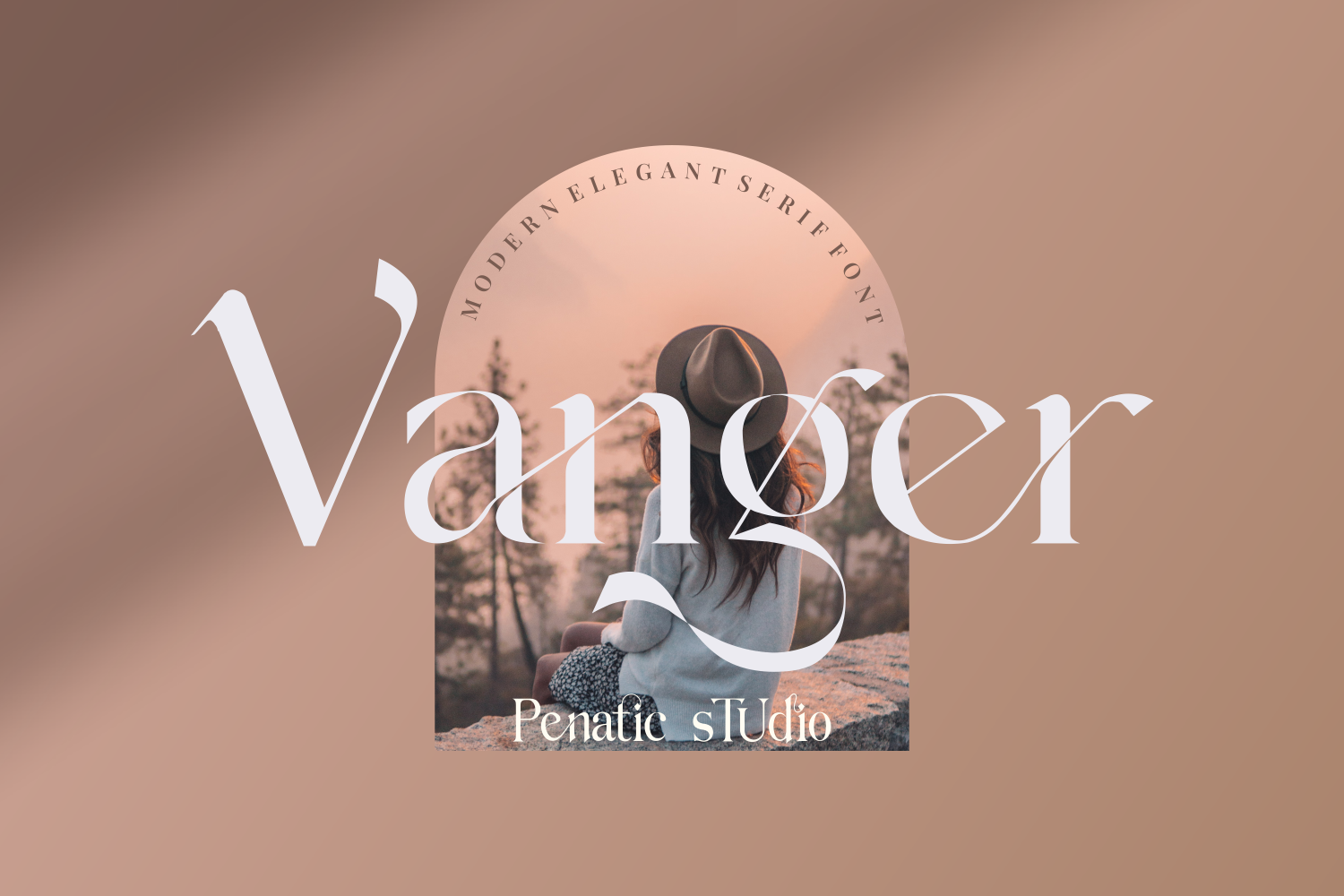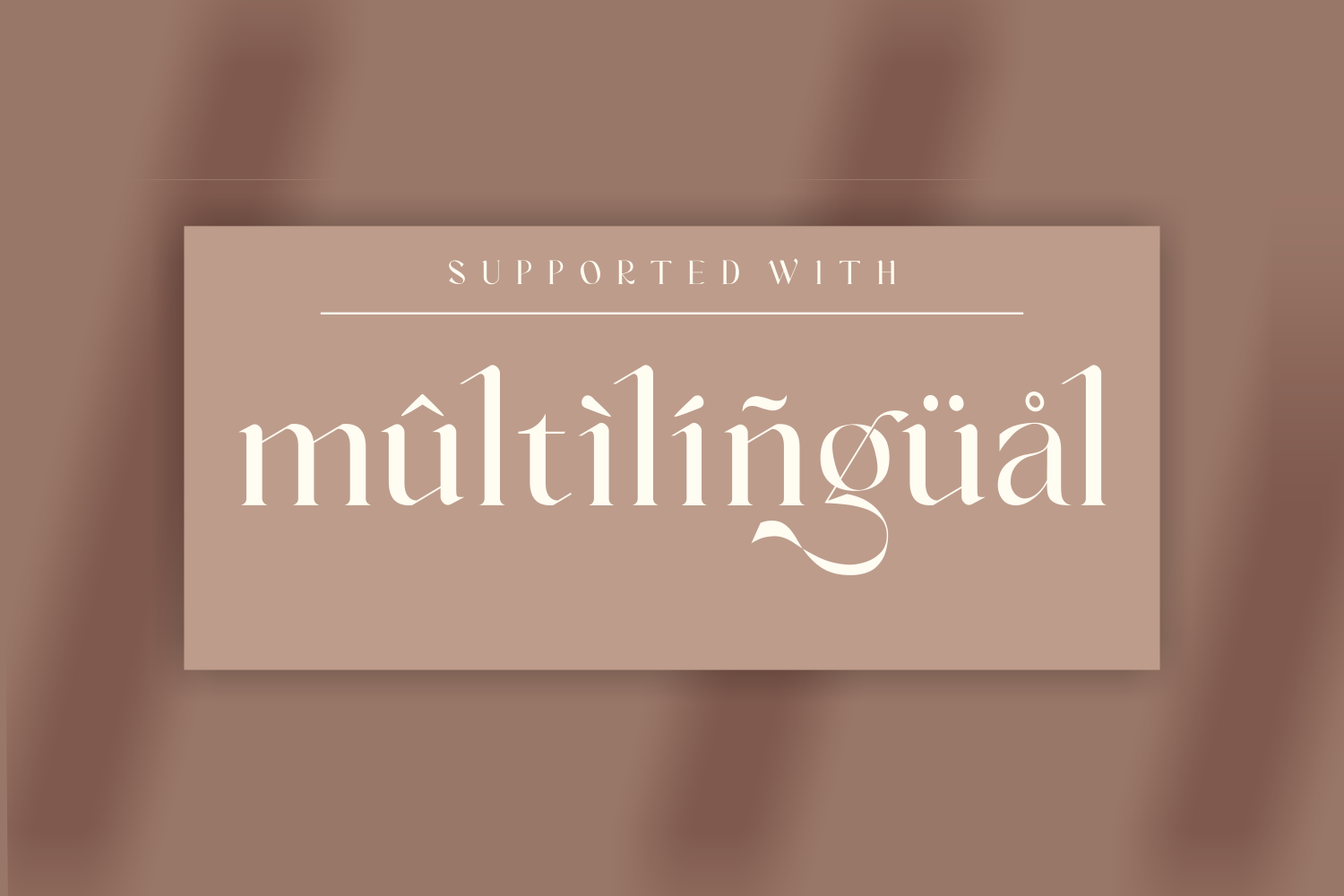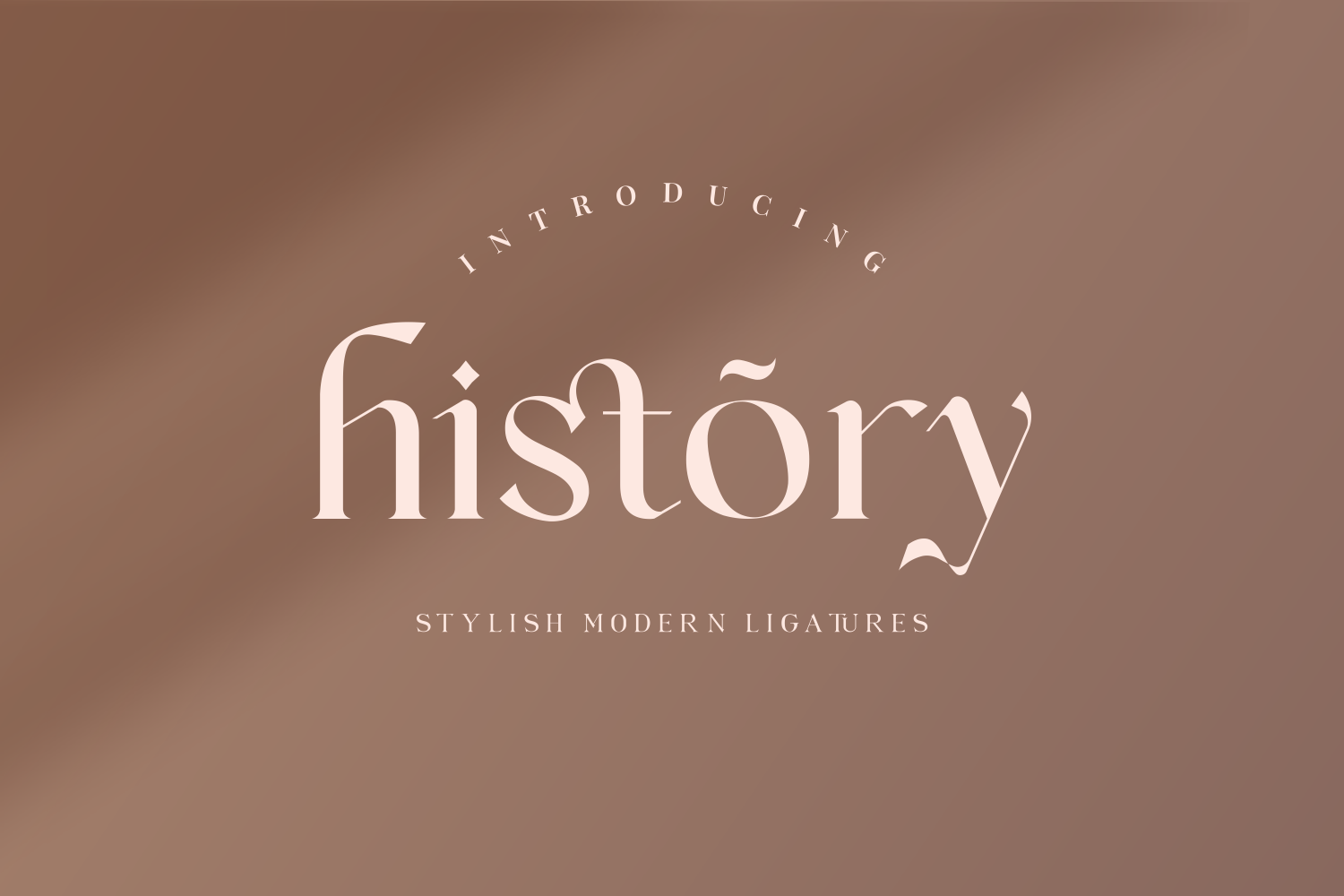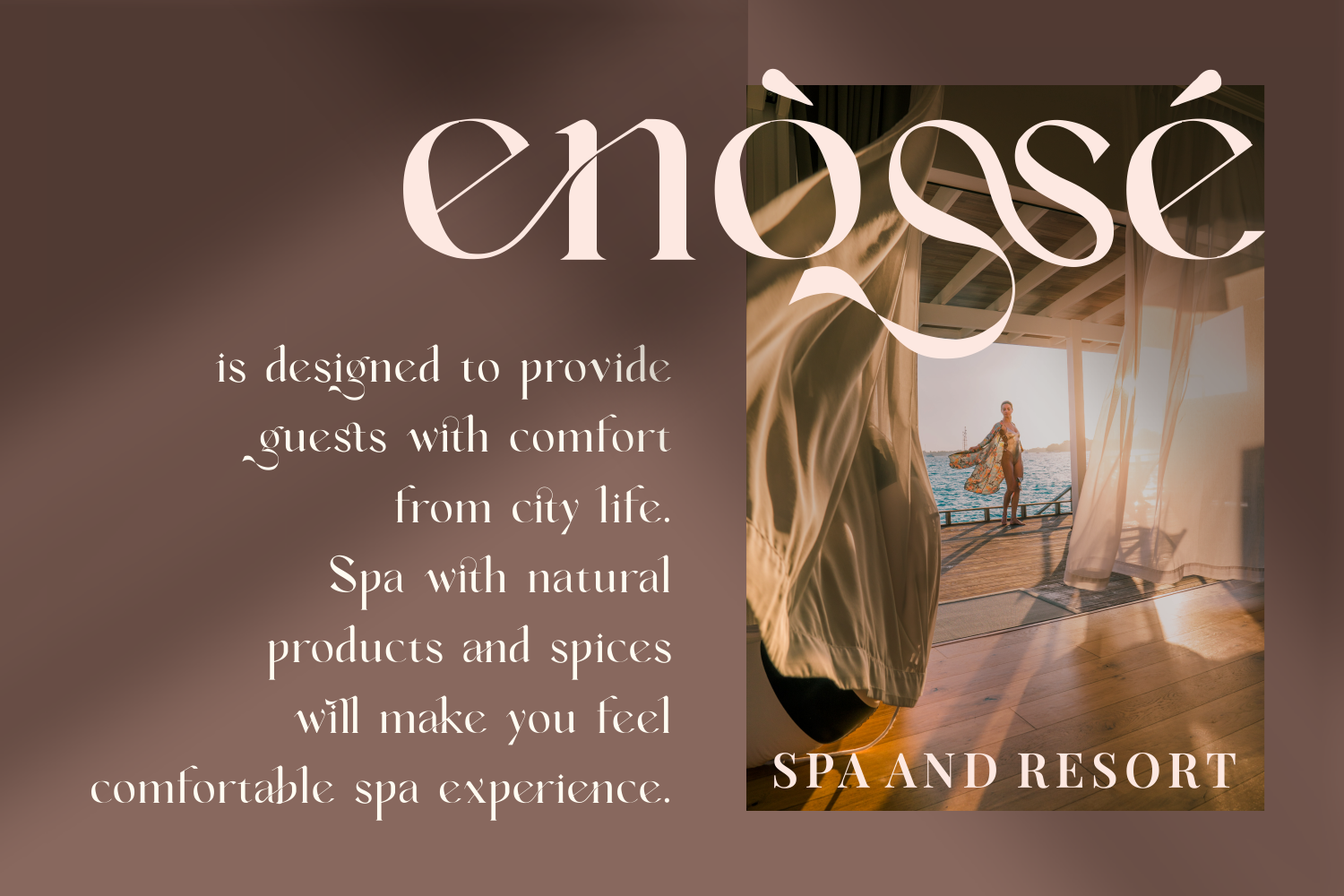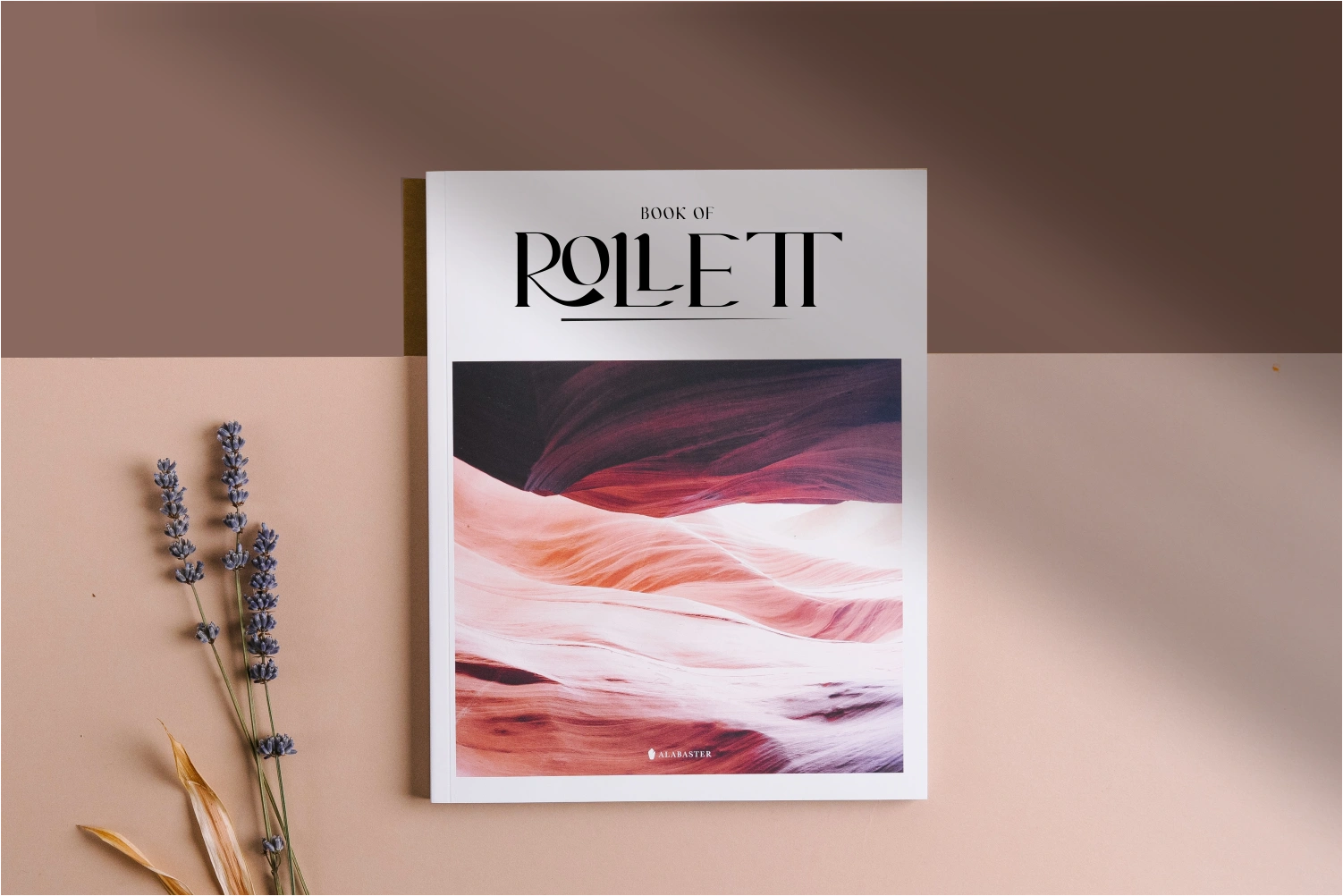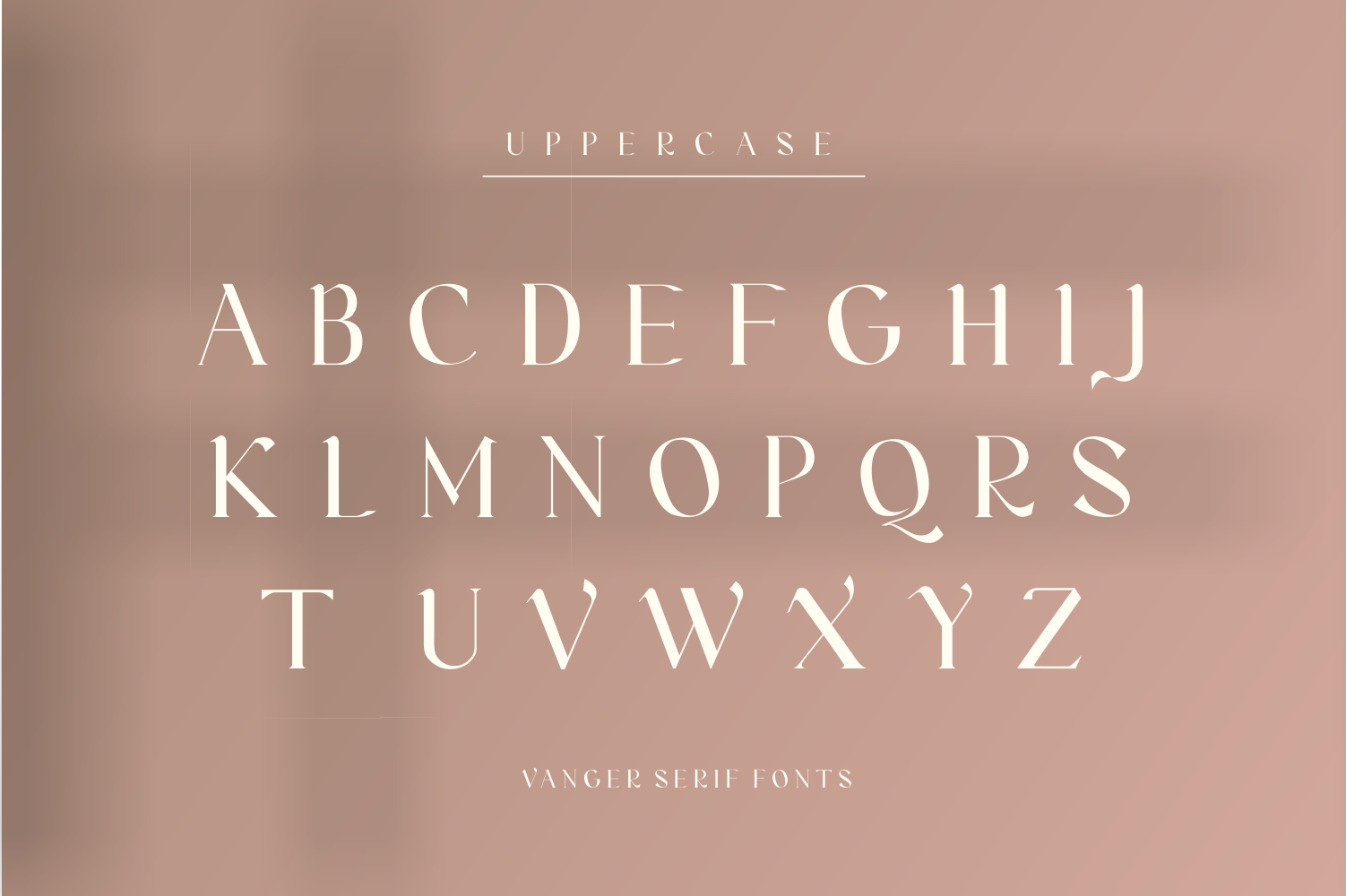
MarketplaceFontsVanger _ modern serif font
Introducing the new Vanger Font Type with lots of unique ligature characters, alternatives and multilingual support.Vanger impresses us with both Classical and modern Style by accessing the many alternative fonts in the Opentype Tool.
Vanger is the perfect font for branding projects, logos, magazine imagery, wedding invitations, posters, apparel, packaging, website headers, or simply as a stylish text overlay onto any background image.